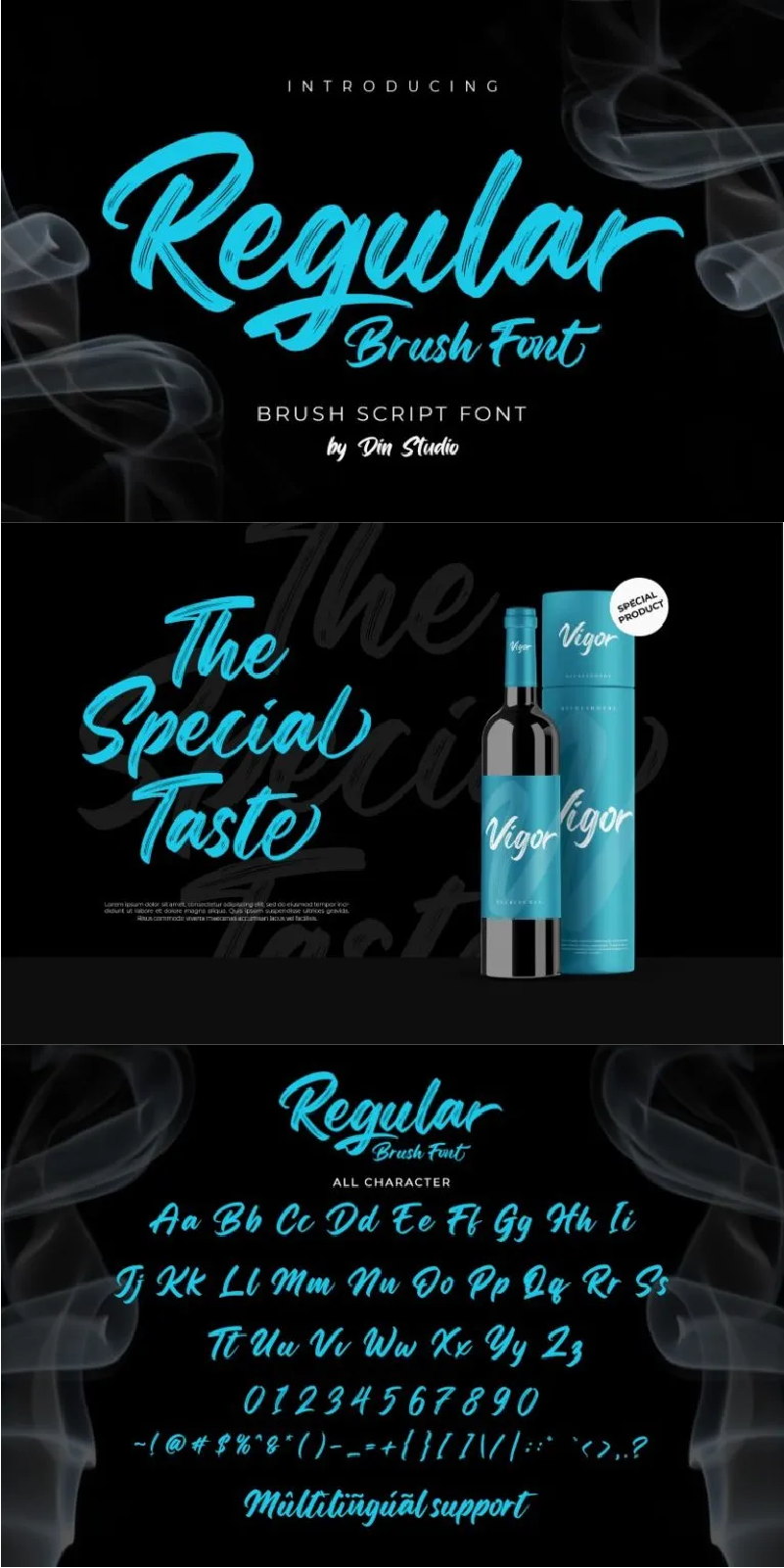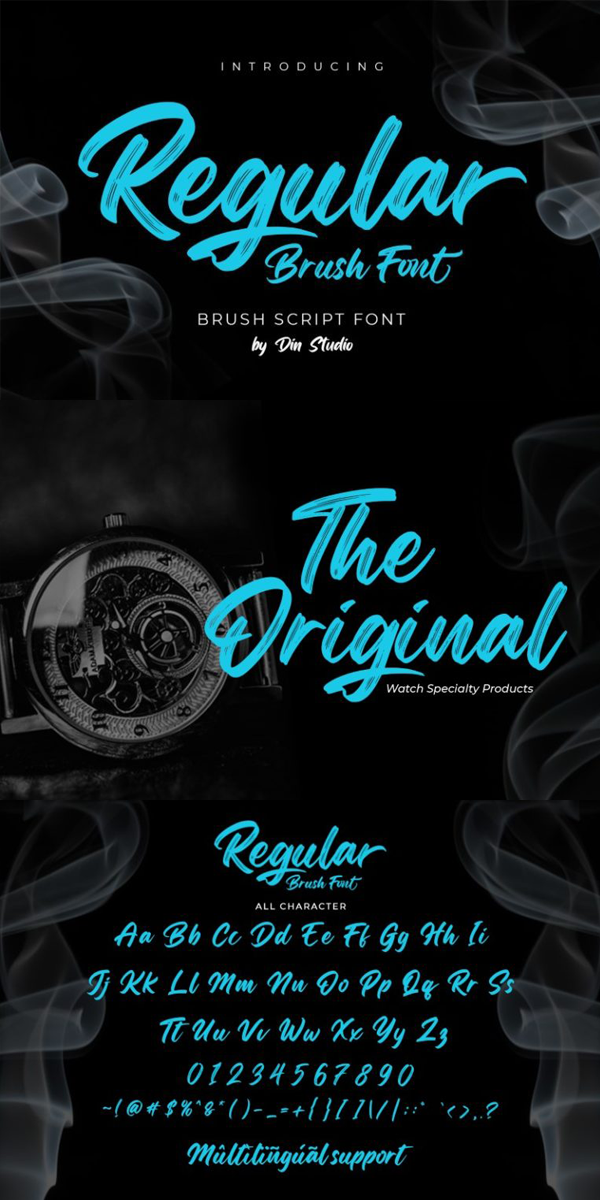
Regular Brush Font
About Regular Brush
Regular Brush is an elegant brush font. The handwritten and brush font combinations will make your design projects more attractive. It is made for any professional project brandings. It suits perfectly for logos, brandings and quotes. See the previews above to get some inspiration on how you can use them. Happy designing!
Features Include:
-Stylish Set